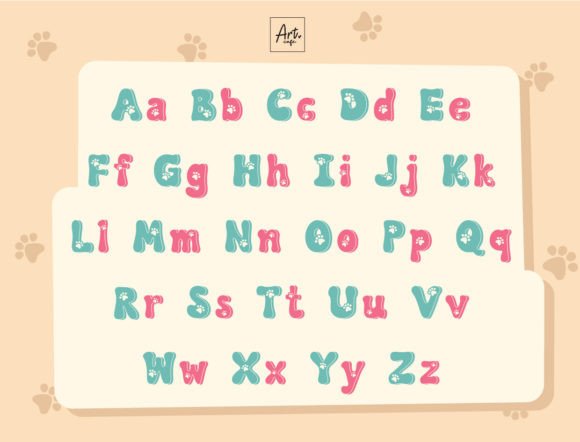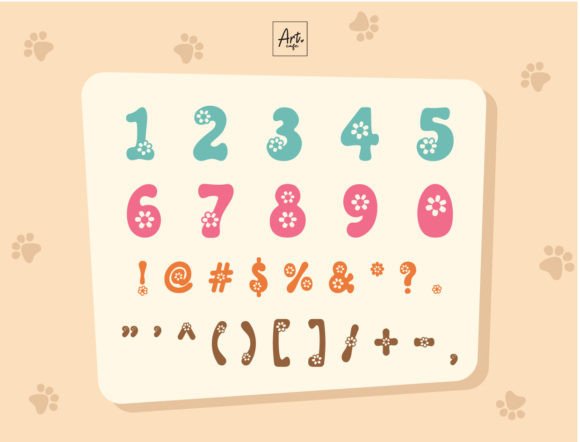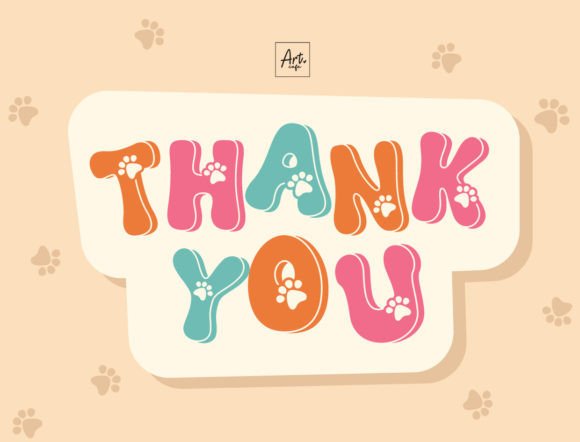
Unleash Your Whimsical Side with the ‘Cat and Dog’ Font
As a designer, I’ve had my fair share of font hunting struggles. I recall working on a project for a pet store, determined to find the perfect typeface that would capture the playful and affectionate spirit of their brand. After hours of scrolling through font libraries, I stumbled upon the ‘Cat and Dog’ font – a game-changer that instantly brought my design to life. If you’re a fellow designer, crafter, or creative hobbyist looking for a font that exudes retro chic and endearing charm, you’re in the right place!
A Personal Review: What I Love About ‘Cat and Dog’
Here’s what makes ‘Cat and Dog’ a standout font:
- ✨ Unique blend of retro and playful elements, perfect for cat and dog enthusiasts, pet-centric businesses, or juvenile ventures
- ✅ Adorable paw prints add a touch of whimsy to headlines and titles
- 💕 Light-hearted and expressive, guaranteed to bring a smile to your audience’s faces
- 🎉 Easy to read and versatile, suitable for various design projects, from posters to digital media
While ‘Cat and Dog’ is an amazing font, there are a few things to keep in mind:
- ⚠️ Limited use of uppercase letters, which might require creative workarounds for all-caps designs
- 🤔 Some characters, like punctuation marks, might appear a bit quirky – but that’s part of the font’s charm!
The Backstory Behind ‘Cat and Dog’
Legend has it that ‘Cat and Dog’ was created by a freelance designer who wanted to capture the joy and playfulness of her own pets. Inspired by vintage posters and her furry friends’ adorable antics, she crafted a font that would bring a smile to people’s faces. And so, ‘Cat and Dog’ was born – a unique blend of retro chic and whimsical charm that’s been making waves in the design community ever since.